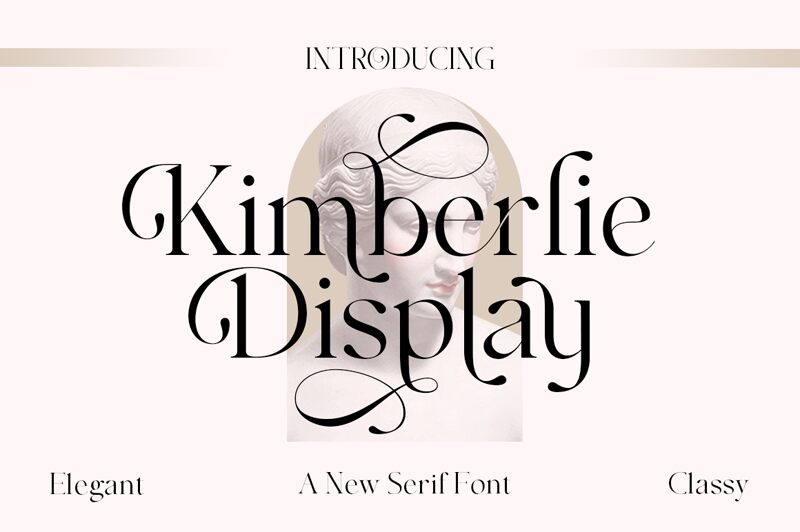
Kimberlie, a captivating serif font crafted by Attract Studio, exudes a timeless elegance with its refined curves and graceful strokes. This typeface's sophisticated flair evokes a sense of refined sophistication, making it a compelling choice for a wide range of design applications. The Kimberlie font's distinctive personality lends itself to projects that require a touch of classic charm, whether in editorial layouts, high-end branding, or elegant stationery.
Kimberlie's versatility shines through its ability to effortlessly complement both modern and traditional design aesthetics. Its well-balanced proportions and harmonious letterforms make it an ideal selection for titles, headings, and impactful textual elements, ensuring a visually captivating and cohesive overall composition.